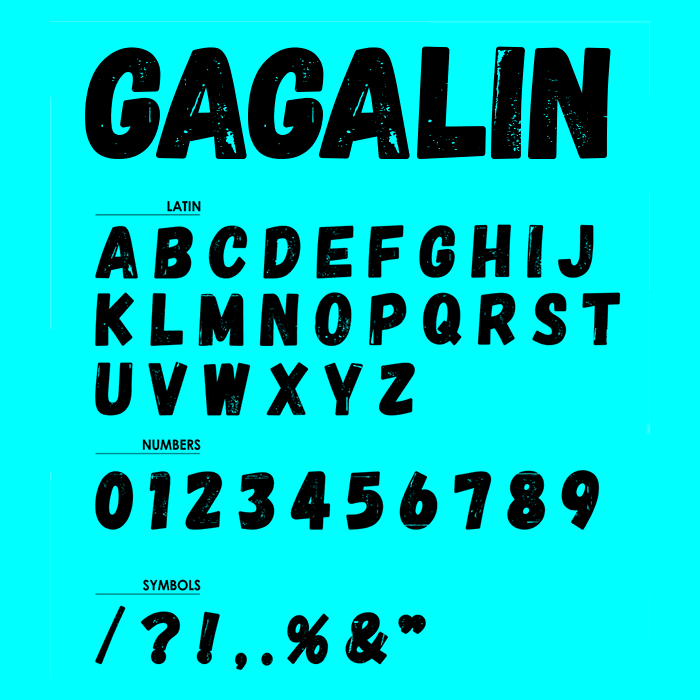
About Gagalin Font
Gagalin is a retro comic font by Iordanis Passas (Athens, Greece). The type is made with a rough and scratch effect to it! This beautiful example of display fonts can add a lavish vintage touch to any design you do! The Gagalin regular font works perfectly for poster design, t-shirts, apparel, hard surface, branding, flyers, and more! The Gagalin font supports characters of the Russian alphabet. Free Download is available on our website. Download free amazing Gagalin free font.
The Gagalin regular font works perfectly for poster design, t-shirts, apparel, hard surface, branding, flyers, and more!